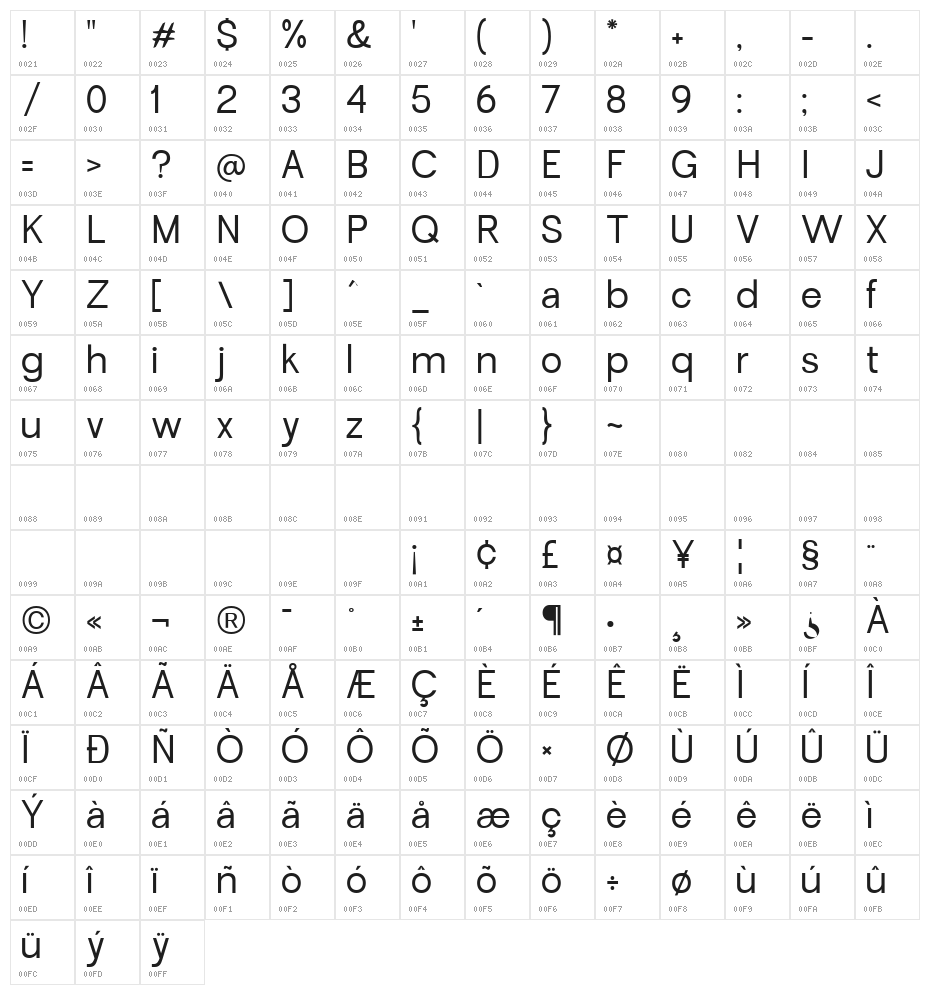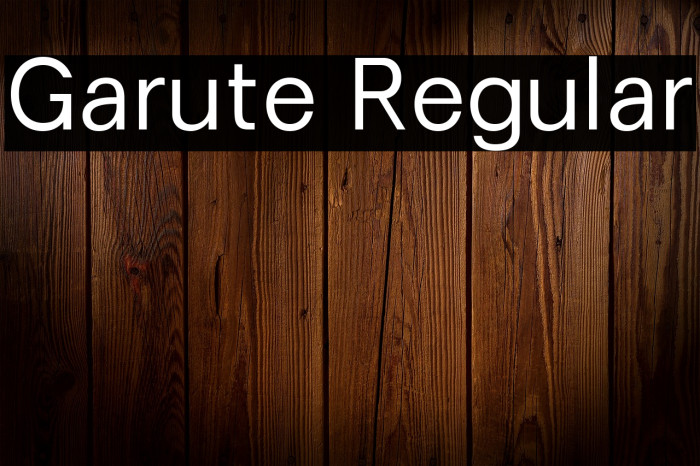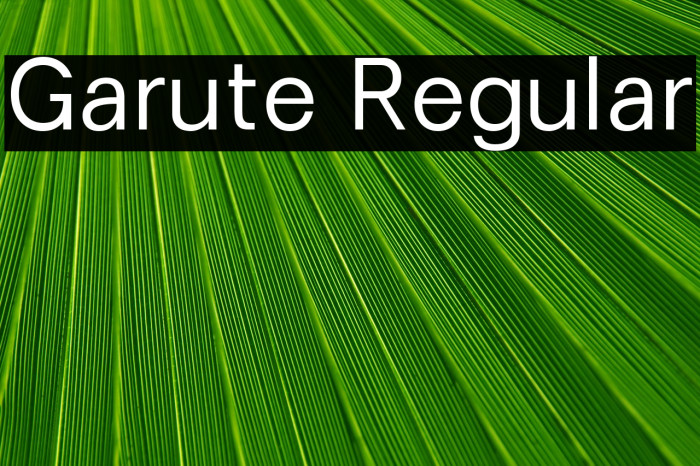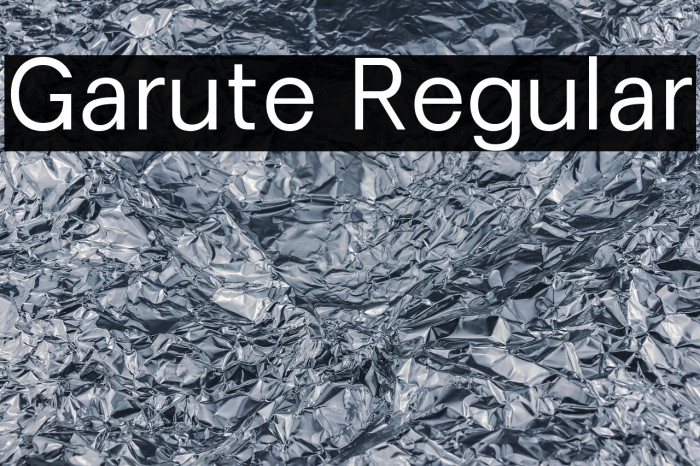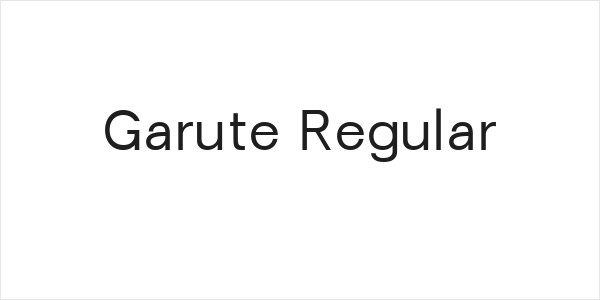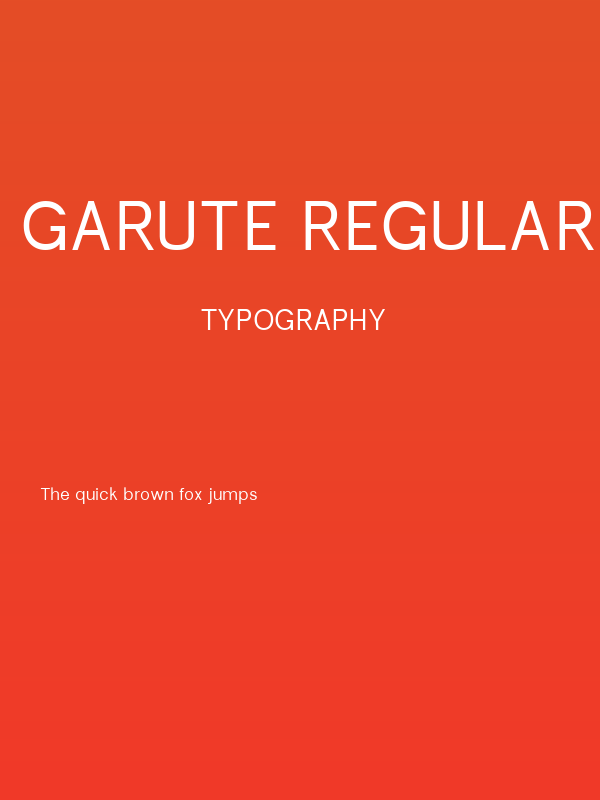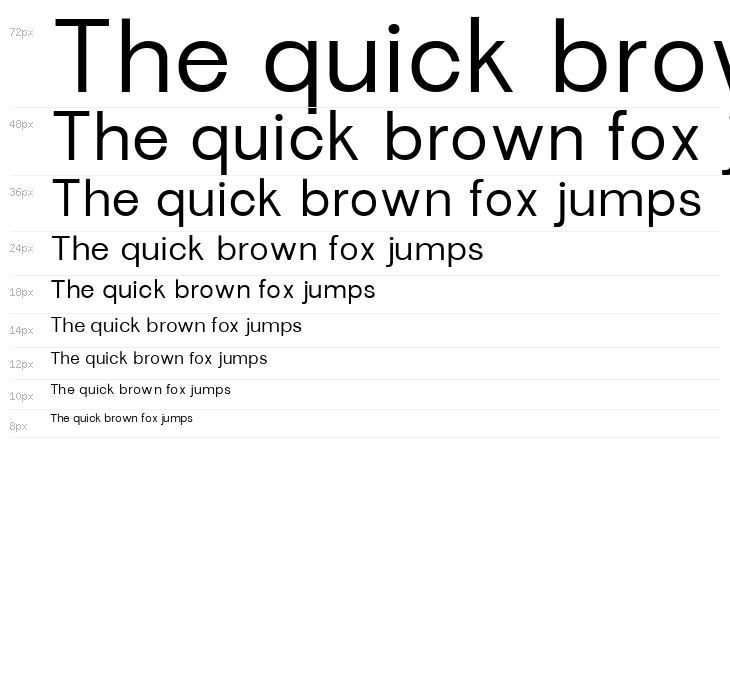
Garute Regular Font
Garute Regular Description
This font features a clean and modern sans-serif design, characterized by its simplicity and clarity. The letters are evenly spaced, with a consistent stroke width that provides a balanced and harmonious appearance. The uppercase and lowercase letters are well-proportioned, making it versatile for various design applications. The numerals are clear and legible, while the special characters are distinct and well-integrated into the overall style. This font's straightforward design makes it suitable for both digital and print media, offering a professional and contemporary look.
| Use Case | Headlines, Body text, Logos |
| Proposed Projects | Ideal for branding, web design, corporate materials, and editorial layouts. |